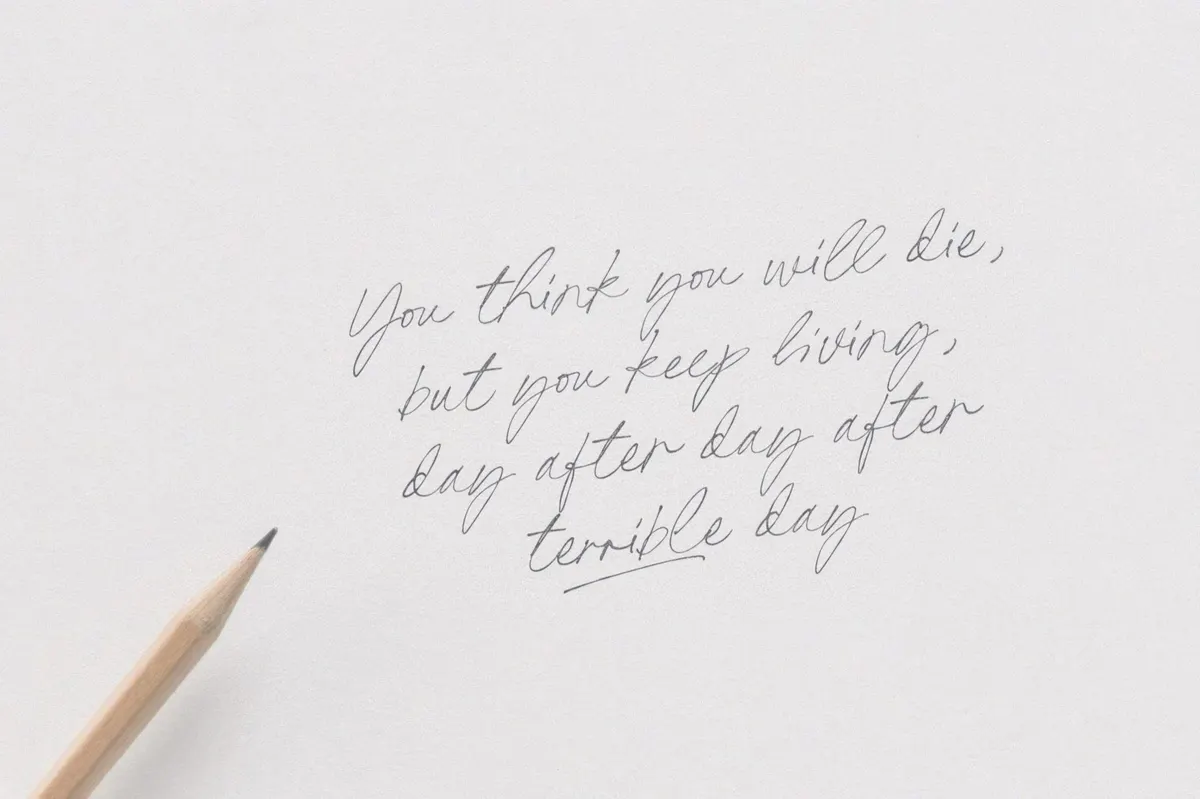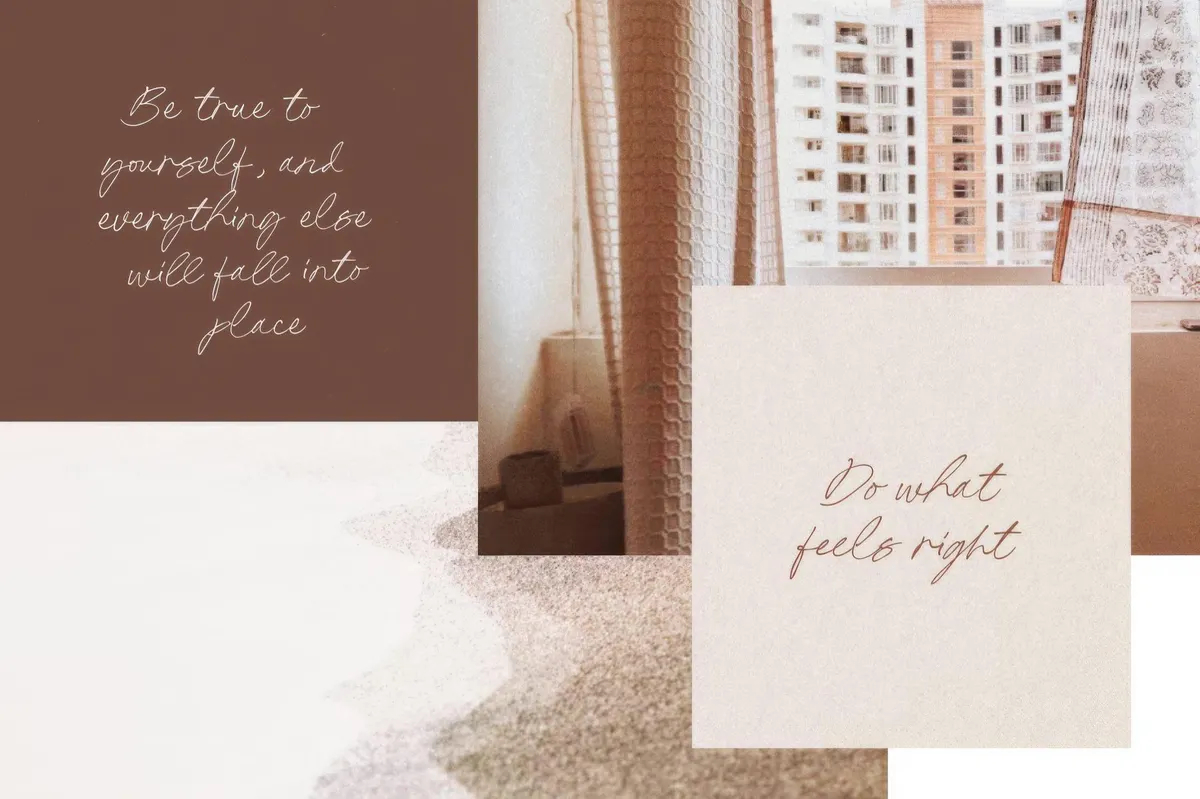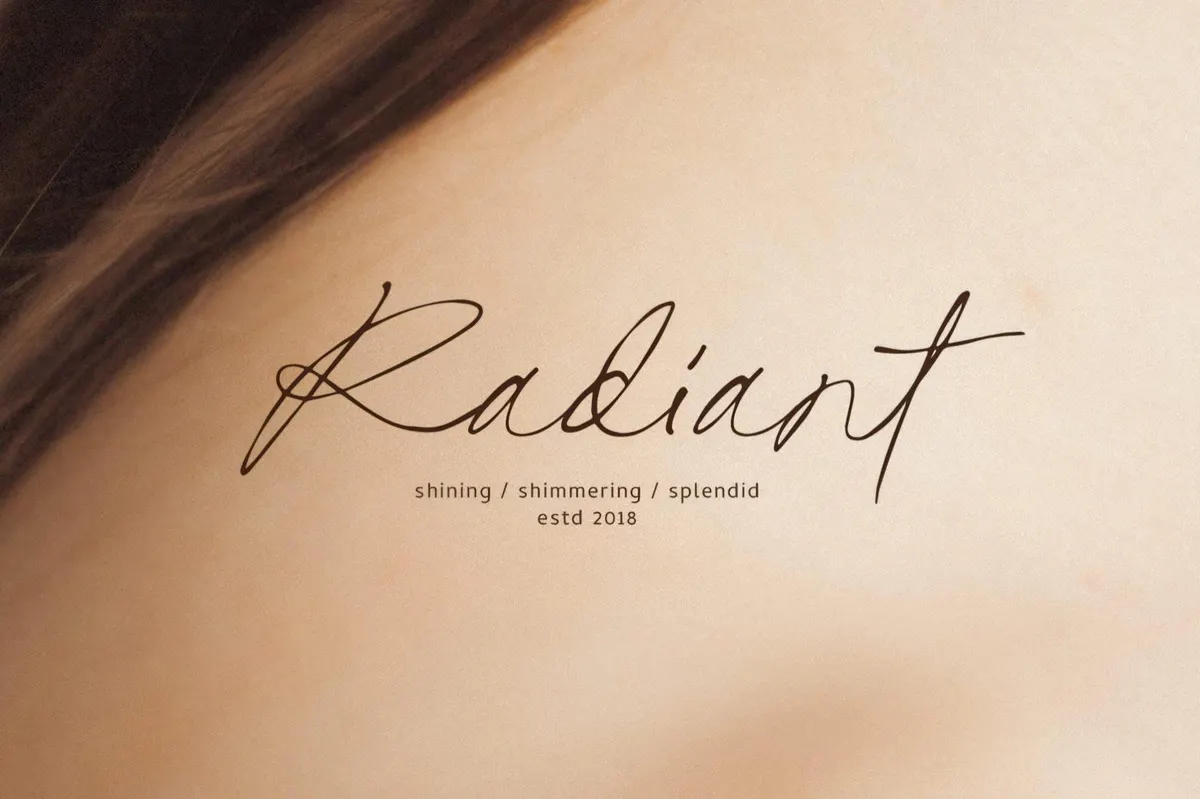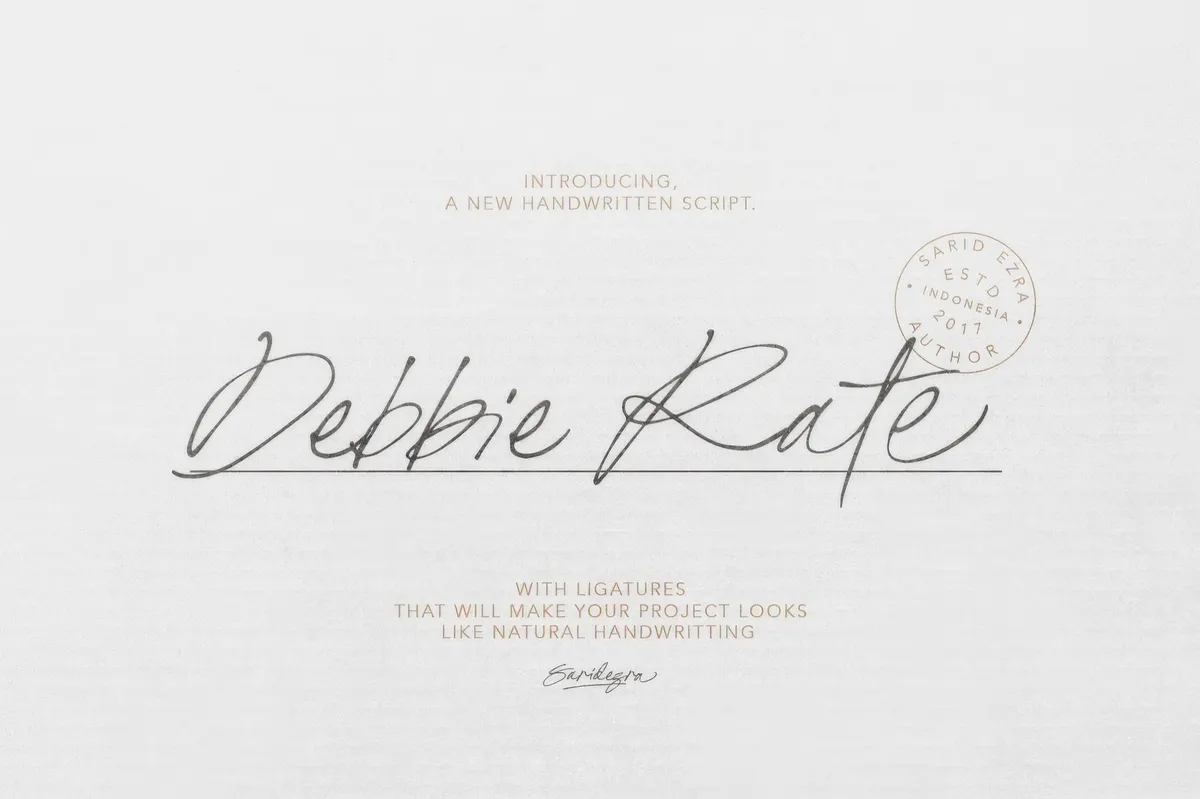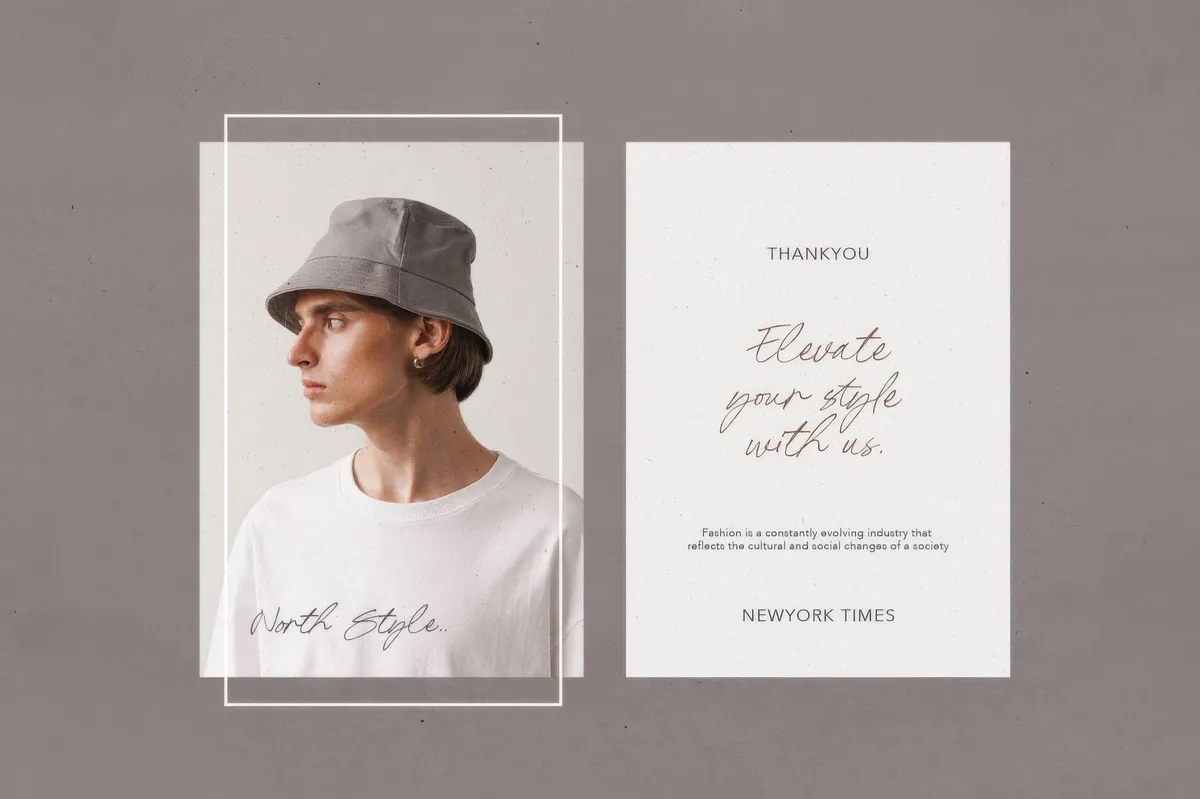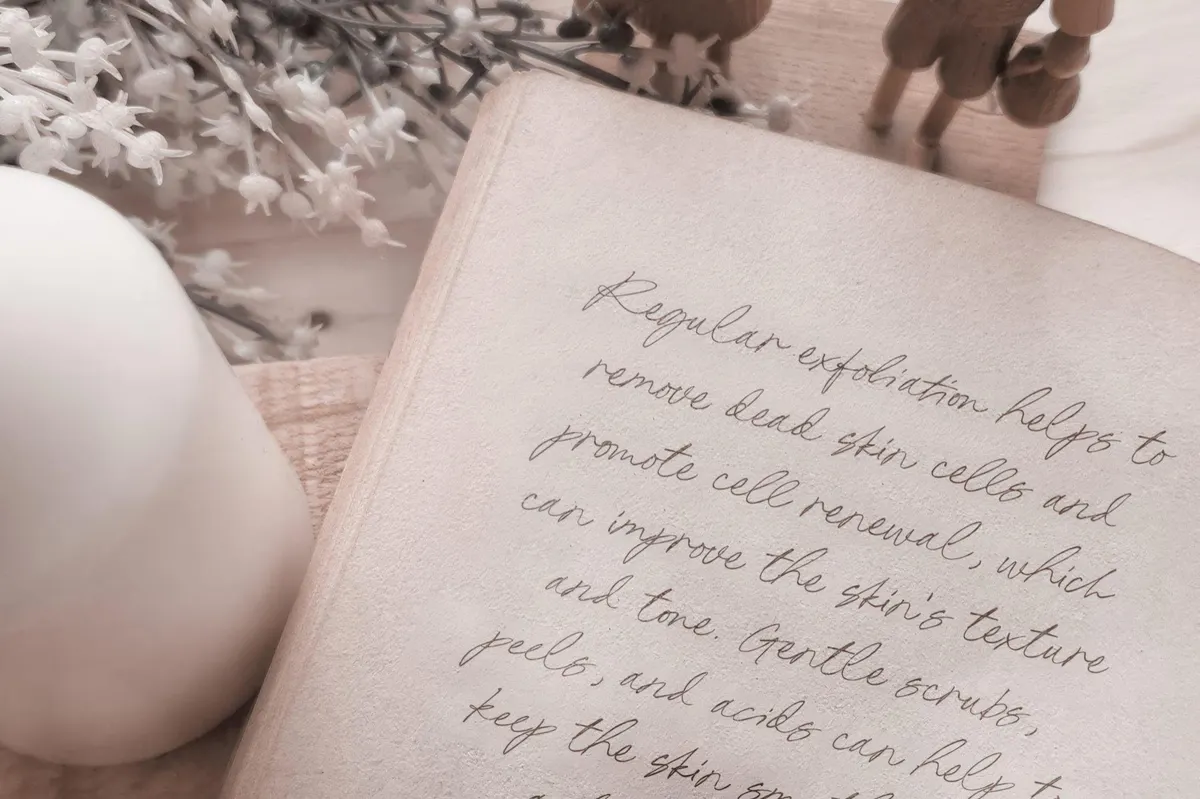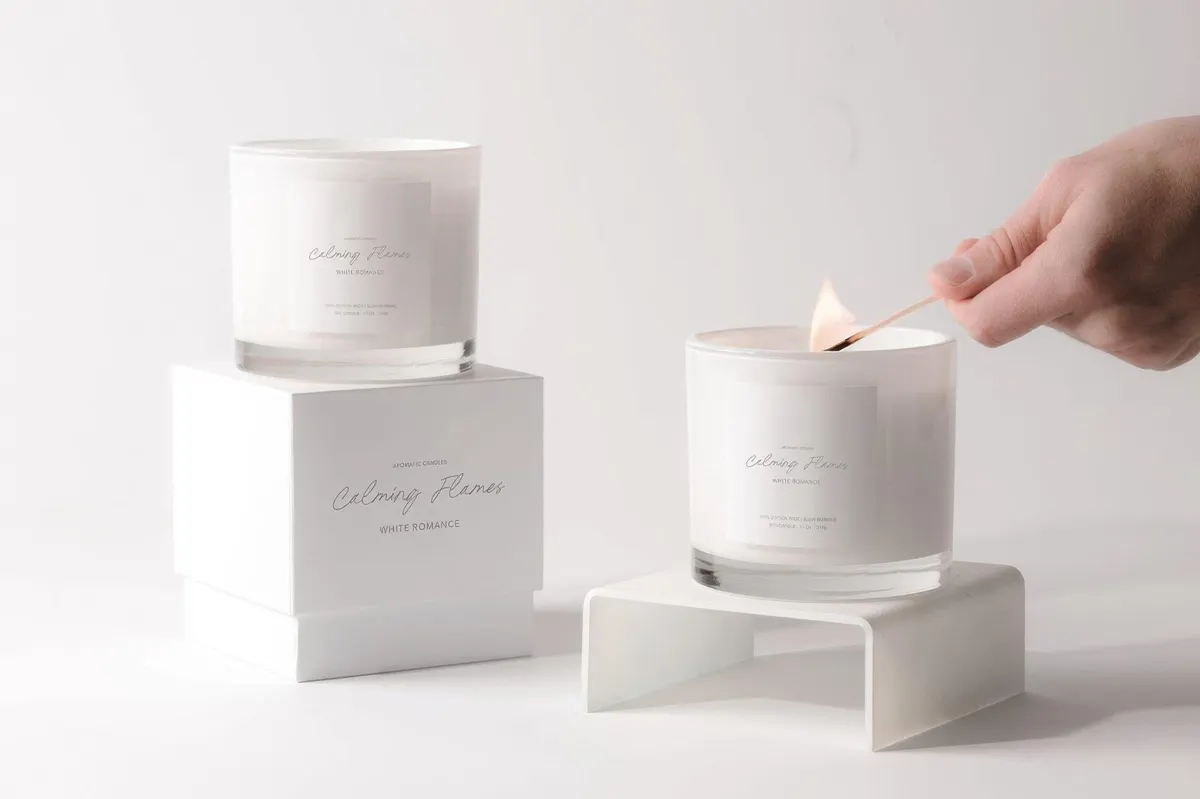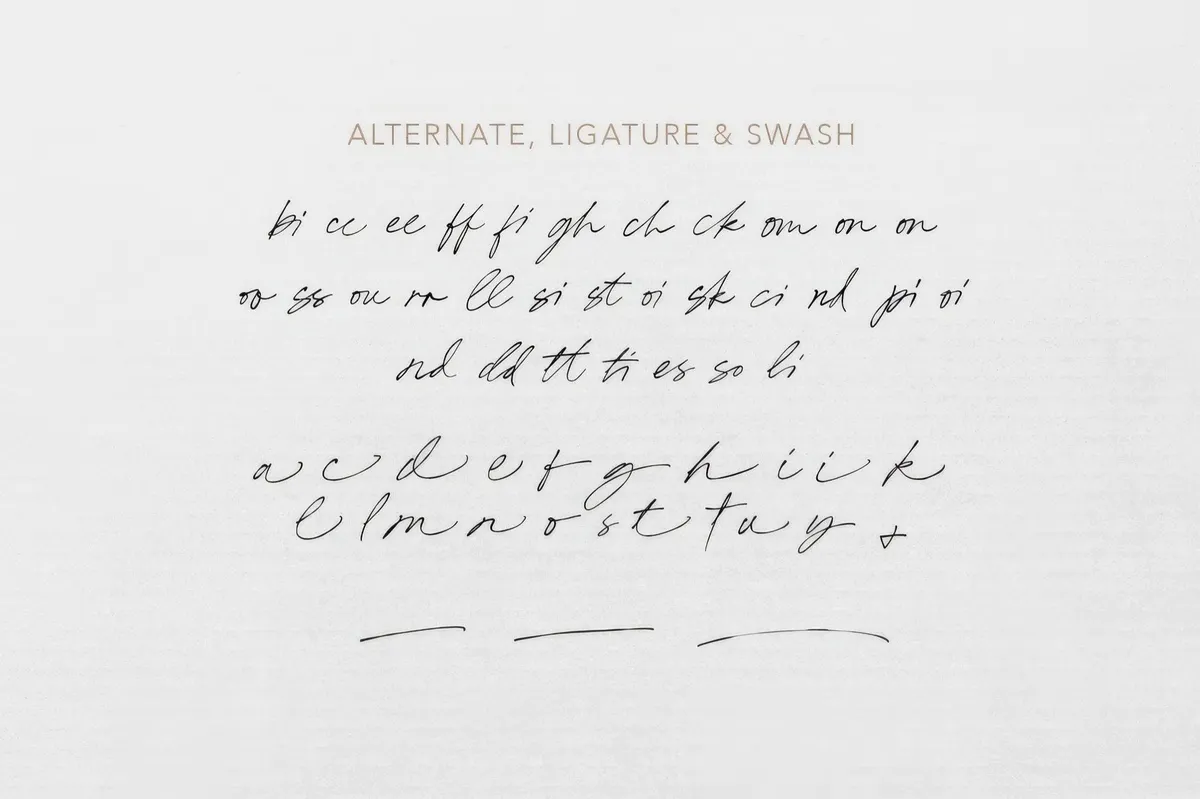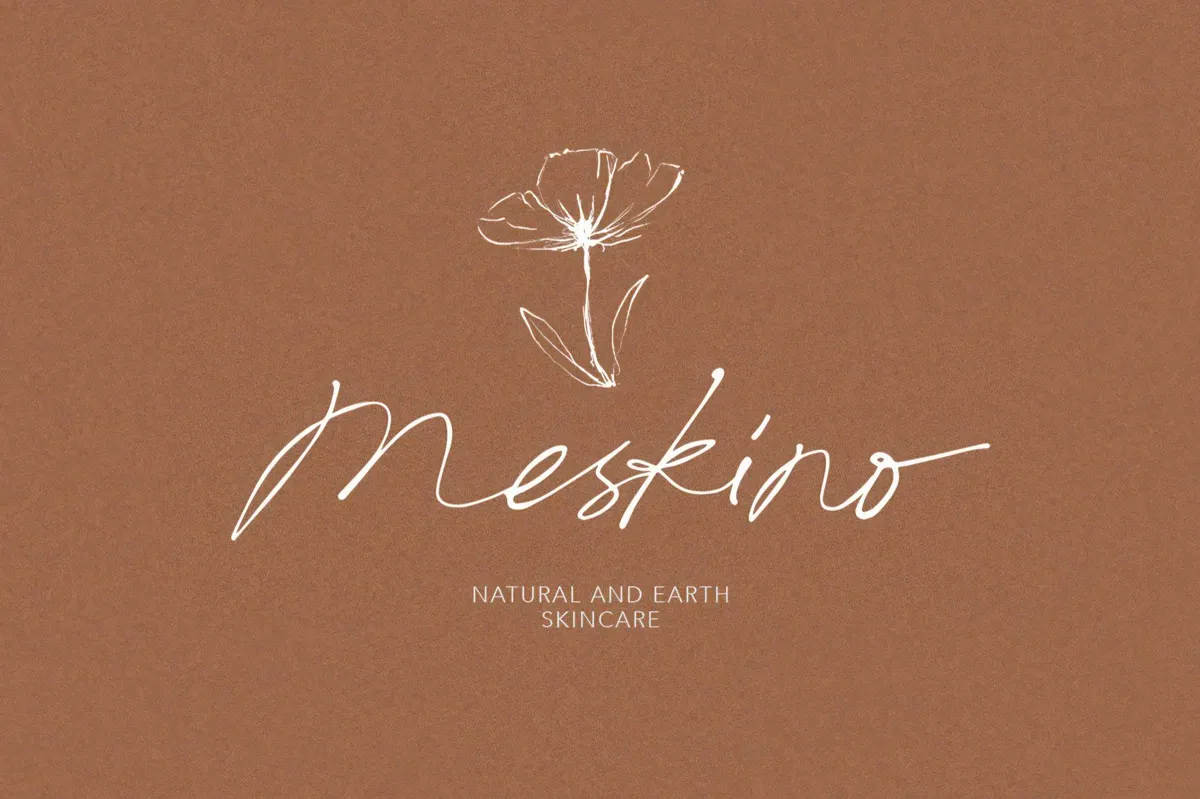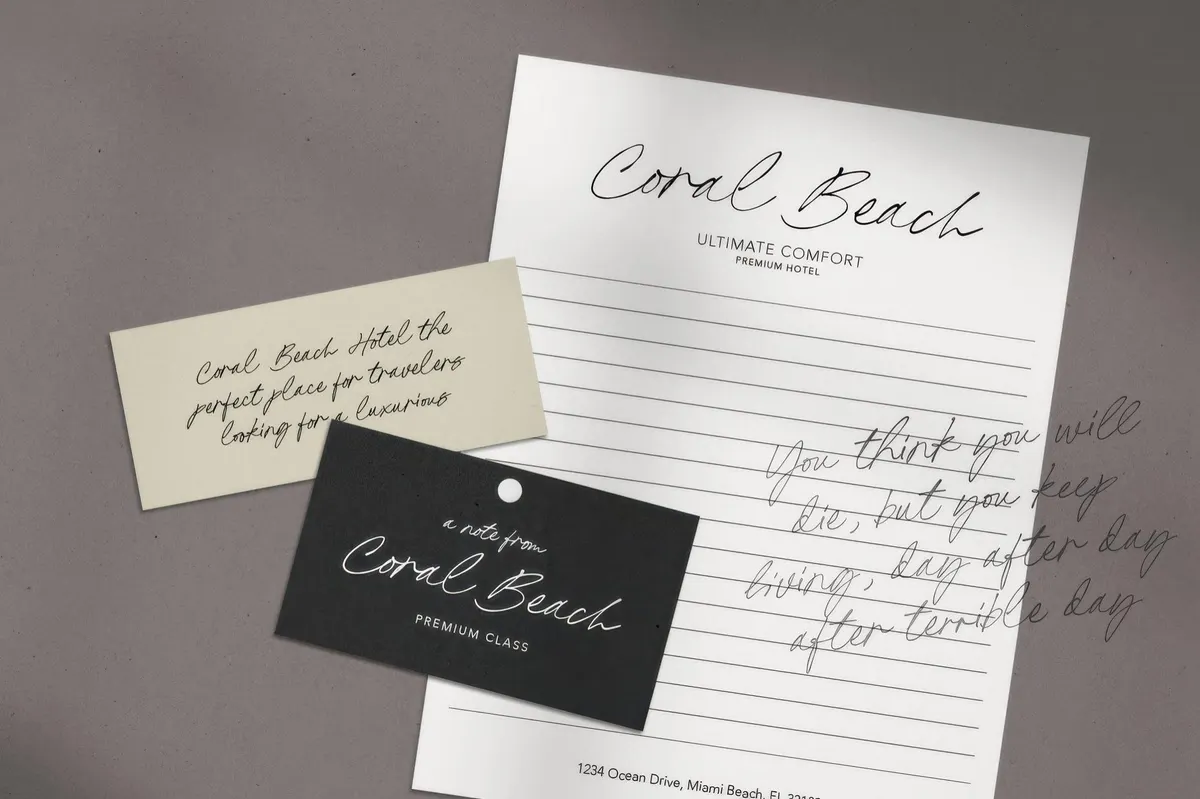
Debbie Rate — Handwriting Script
Debbie Rate captures the essence of natural handwriting with a modern, minimal twist. Its delicate ligatures give every letter a graceful flow, transforming projects into polished works of art. It also provides the underline feature that is accessible with OpenType commands. The set of glyphs includes uppercase, lowercase, numerals, punctuation as well as a bunch of stylistic alternates, ligatures, and swashes. Debbie Rate’s is compatible with multiple languages, which makes it suitable for a wide range of designs: wedding invitations, branding, social media quotes, posters, luxurious packaging, and more.